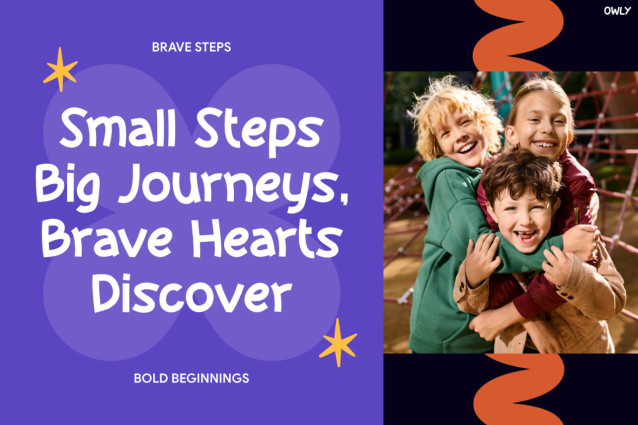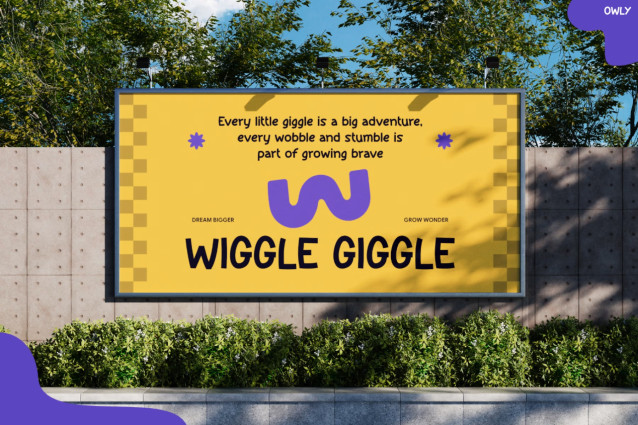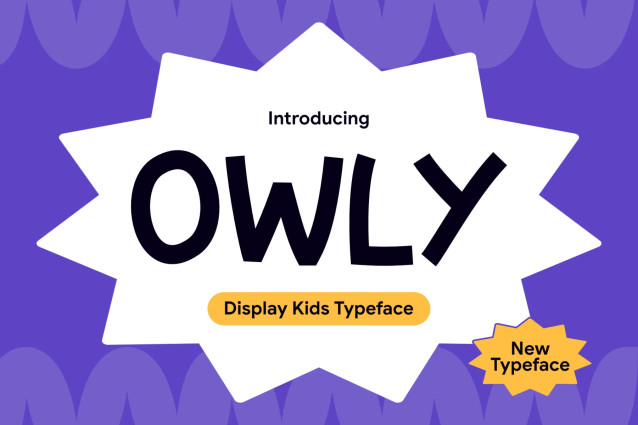
Owly – Playful Kids Display Font
Kids Font Owly brings a cheerful and playful mood to creative typography. With its hand-drawn letterforms, it feels warm, friendly, and full of character. Moreover, chunky strokes give the font a bold display presence. At the same time, its bouncy shapes create a fun and approachable look.
In addition, Owly includes Multilingual Support for 67 Languages. Therefore, it is suitable for both local and international design projects. Furthermore, its expressive characters make headlines, quotes, and short messages more lively. As a result, your designs can feel playful while staying clear and easy to read.